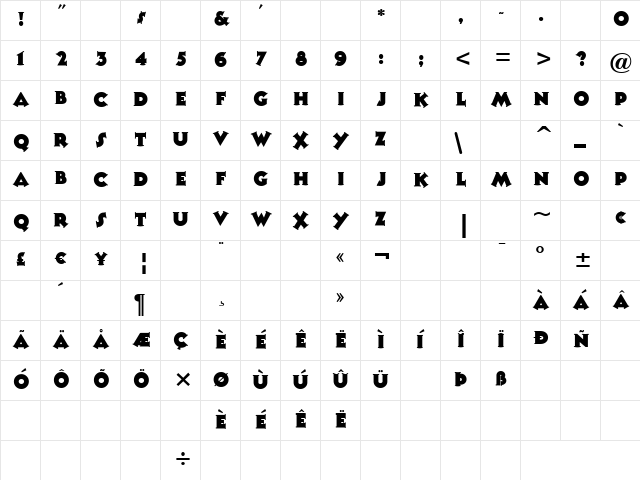
Tooney Noodle Plain Regular
Design Context for Tooney Noodle Plain Typeface
Tooney Noodle Plain is a composed and adaptable typeface that performs quietly and consistently across a wide range of design contexts.